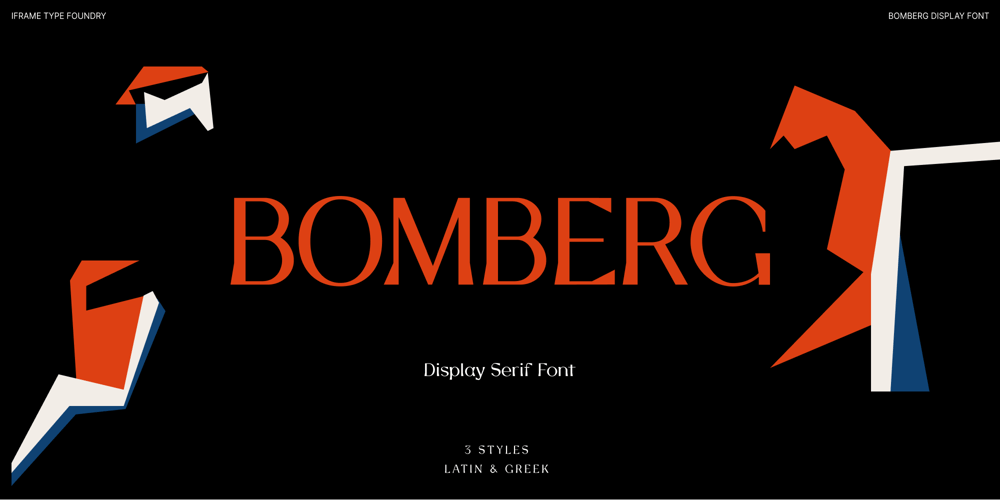
Bomberg Display Serif
Bomberg Display Serif font
Bomberg Display Serif Font Family was designed by Georgios Chalkidis and published by iframe. Bomberg Display Serif contains 1 styles and family package options. Bomberg Display Serif FontImmerse yourself in the world of art and typography with Bomberg Serif Font by iframe type foundry. Inspired by the legendary David Bomberg’s iconic painting, “The Mud Bath.” Just as Bomberg’s brush strokes conveyed raw emotion and creativity, our font captures that very essence in each meticulously crafted letterform.With Bomberg Serif Font, your designs transcend the ordinary, taking on a unique and expressive character. Like the vivid colors of “The Mud Bath,” our font injects vibrancy and depth into your projects. Whether you’re a designer seeking to infuse artistic flair or an artist searching for the perfect typographic medium, this font lets you channel the spirit of Bomberg’s masterpiece into your work.Unleash your creativity, tell your story, and make your designs a work of art with Bomberg Serif Font. Explore the intersection of artistry and typography today!Design by iframefonts.com